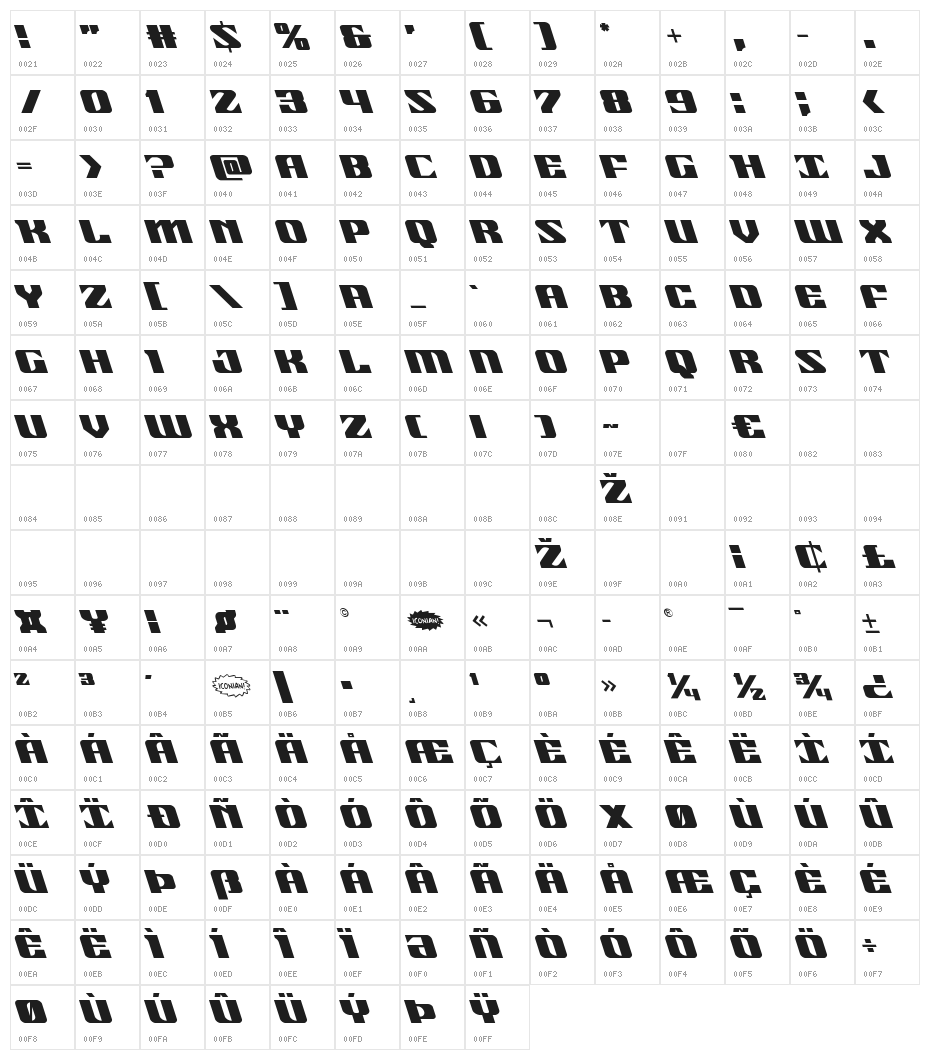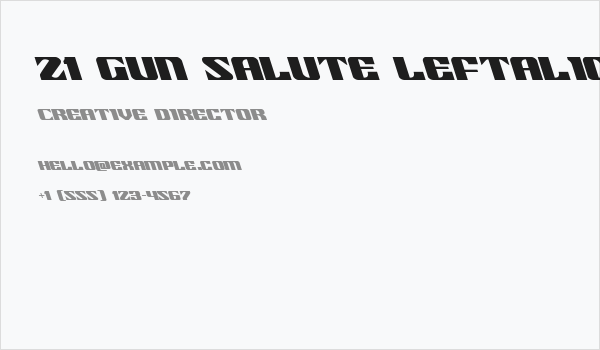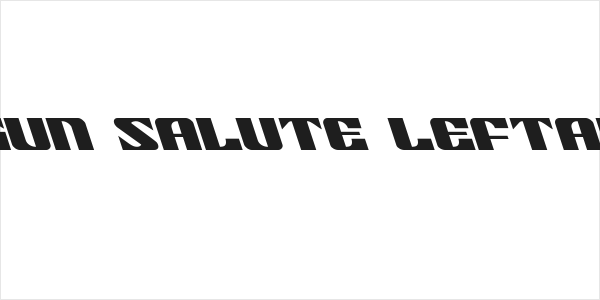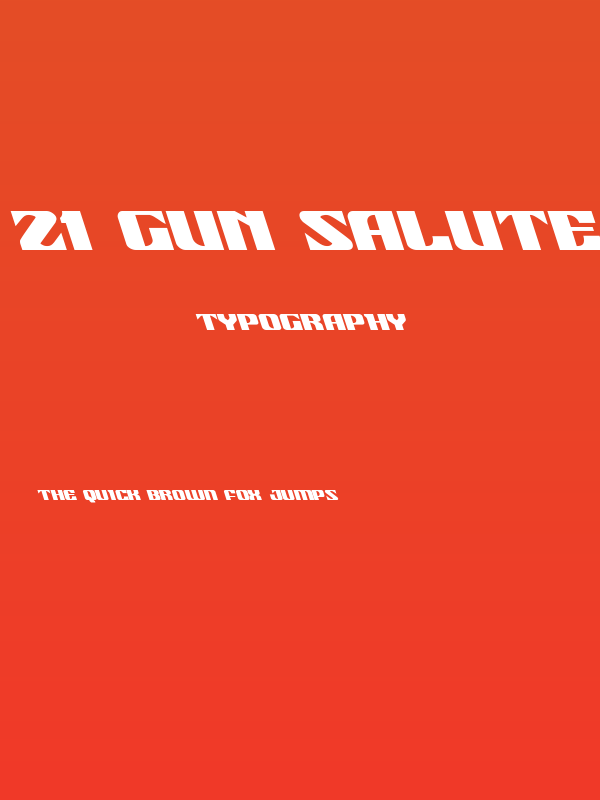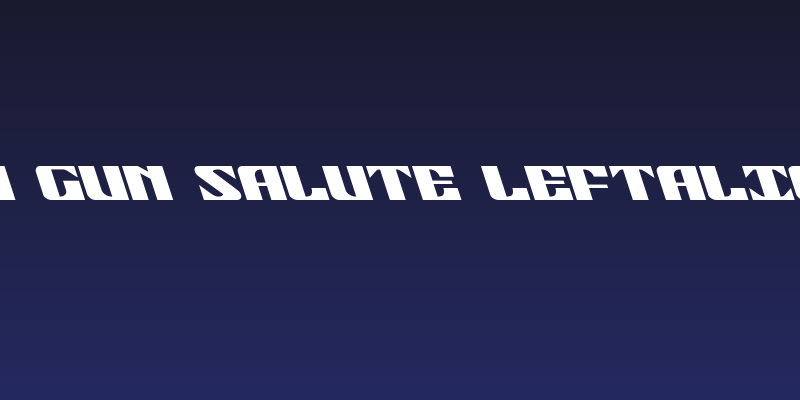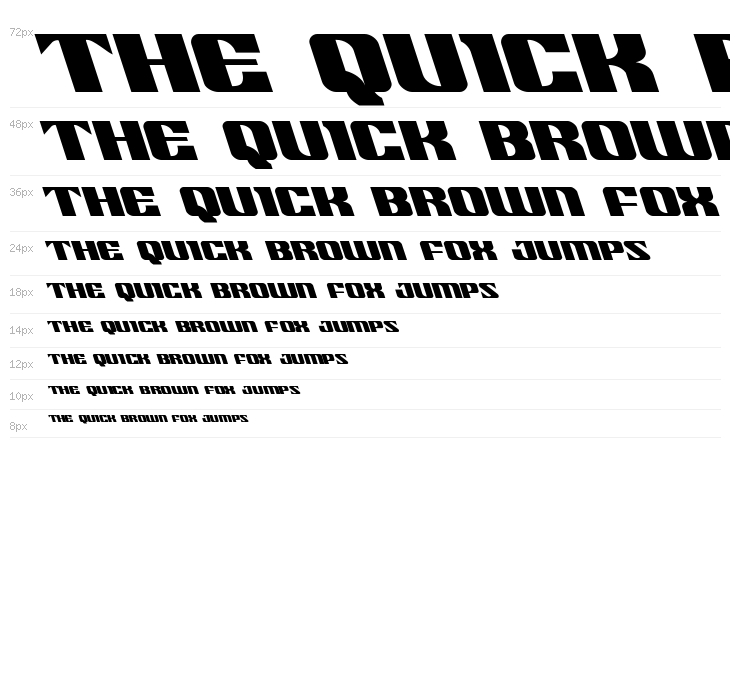
21 Gun Salute Leftalic Font
21 Gun Salute Leftalic Description
This font features a bold and dynamic design with a distinct slant to the left, giving it a sense of motion and energy. The characters are blocky and robust, with sharp angles and a solid presence. The uppercase and lowercase letters maintain a consistent style, while the numerals and special characters integrate seamlessly into the overall design. The font's boldness and unique slant make it stand out, ideal for projects that require a strong visual impact.
| Proposed Projects | Perfect for sports branding, action-themed posters, and dynamic logo designs. |